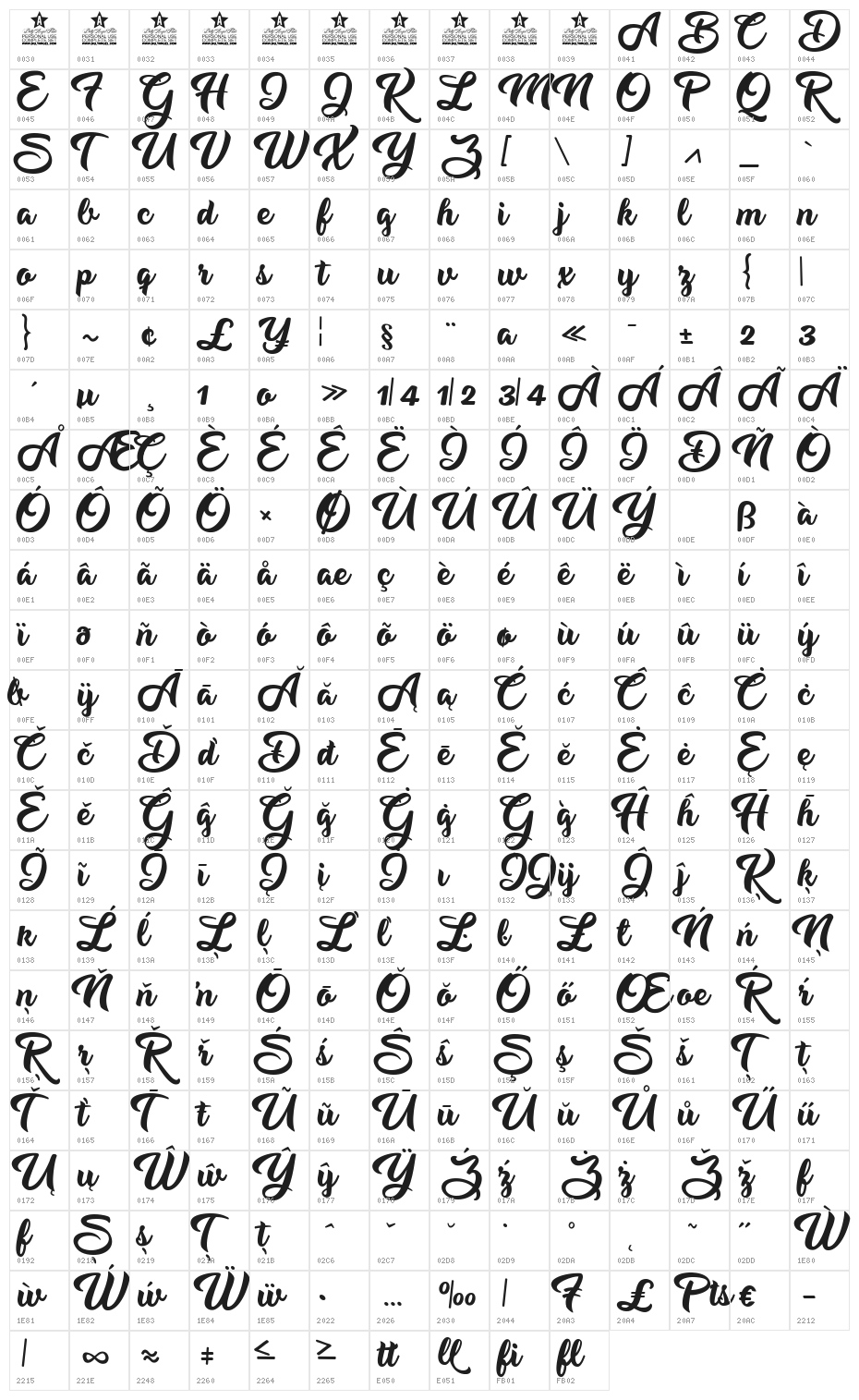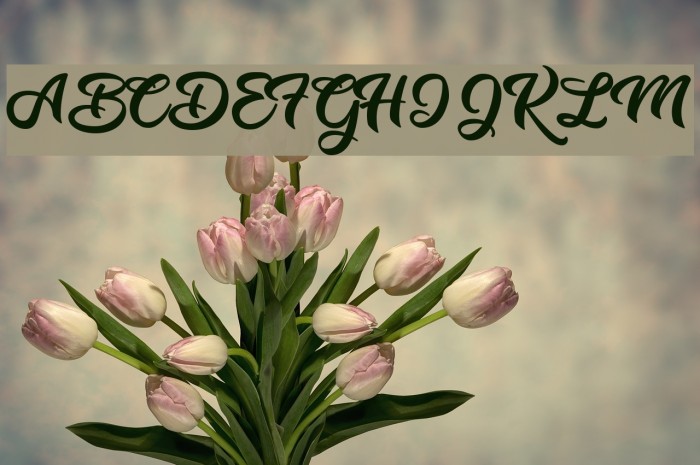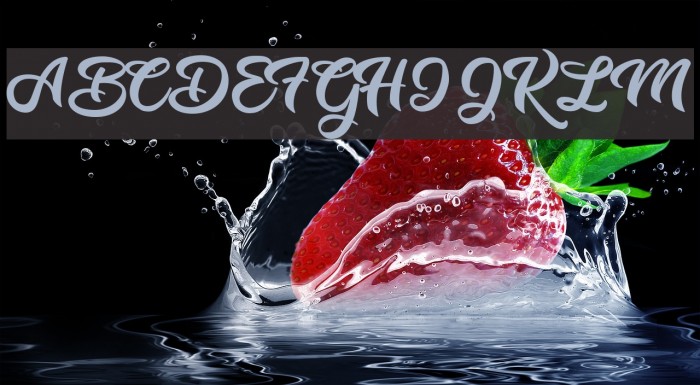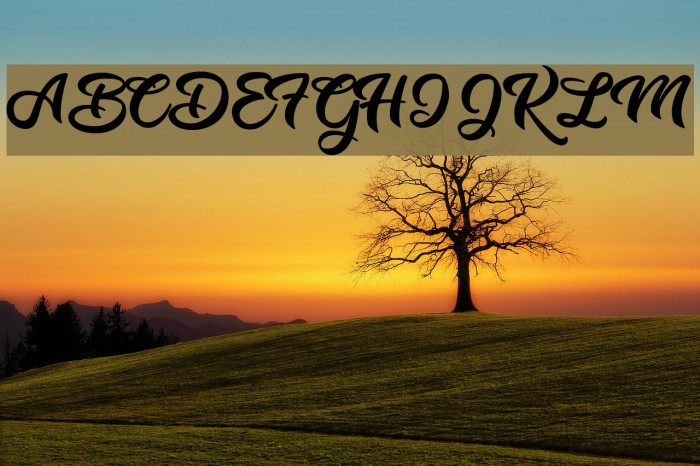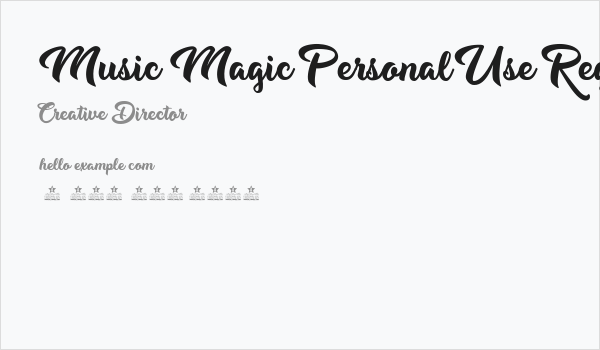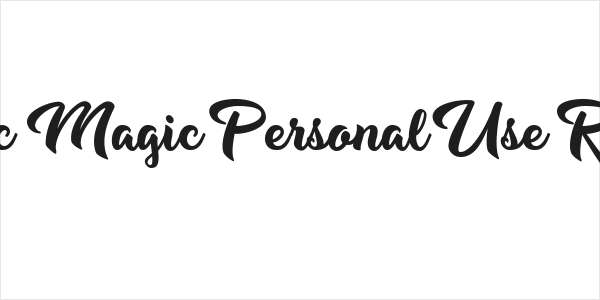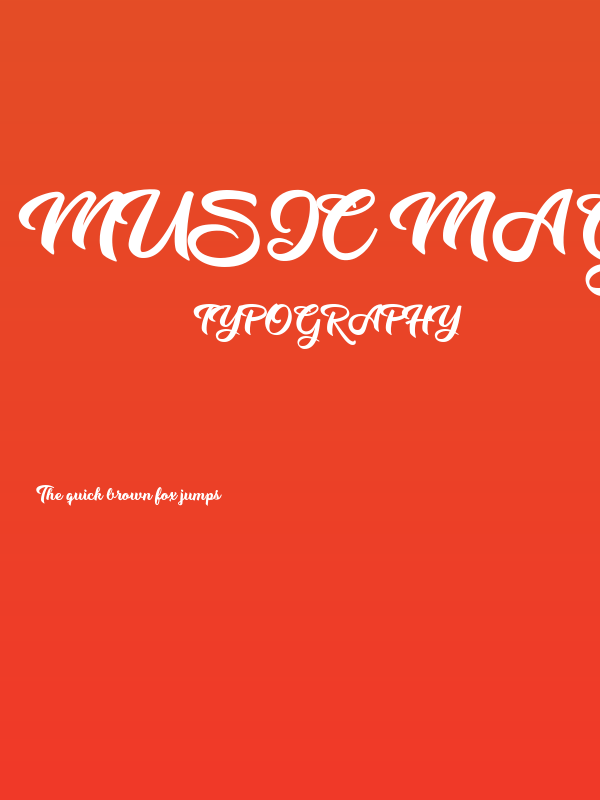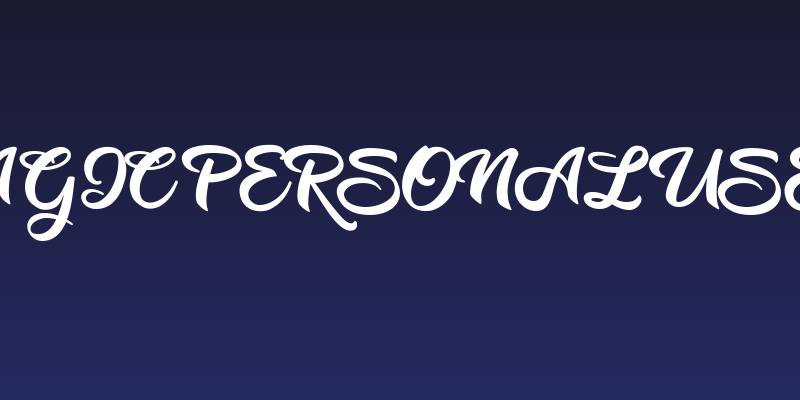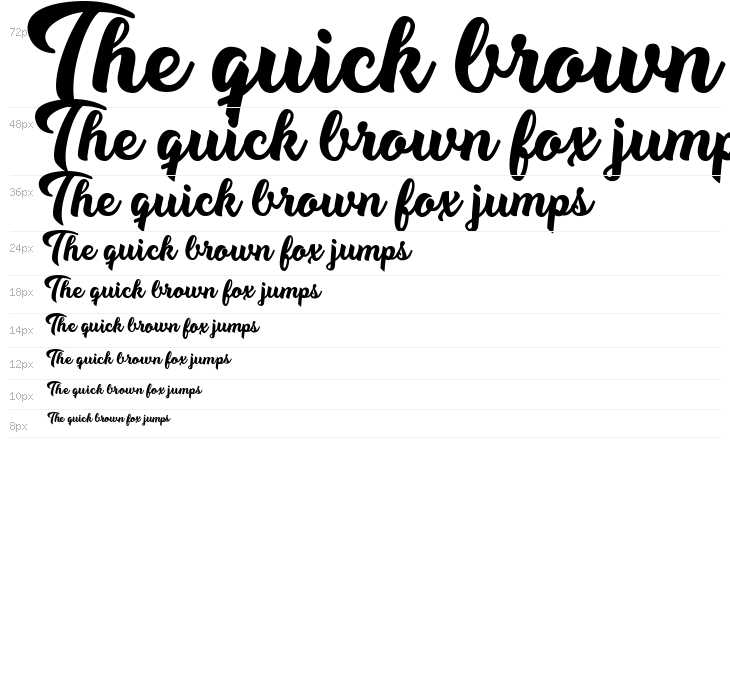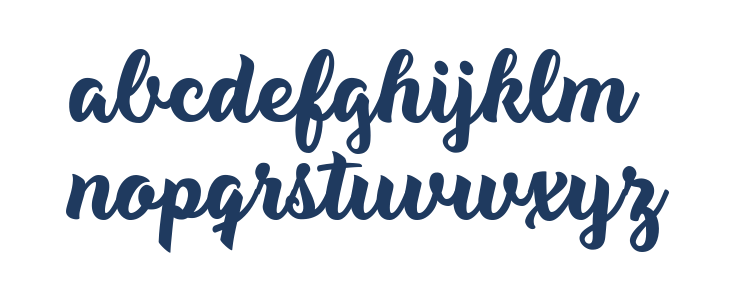
Music Magic Personal Use Regular Font
Music Magic Personal Use Regular Description
This font features a bold, flowing script style with a modern twist. The uppercase letters are elegantly curved, showcasing a sense of movement and fluidity. The lowercase letters maintain a consistent style, with smooth transitions between each character. The font's bold weight and high contrast between thick and thin strokes make it stand out, while the decorative elements add a touch of sophistication. The character spacing is tight, enhancing the cohesive look of the text. This font is ideal for projects that require a personal, artistic touch.